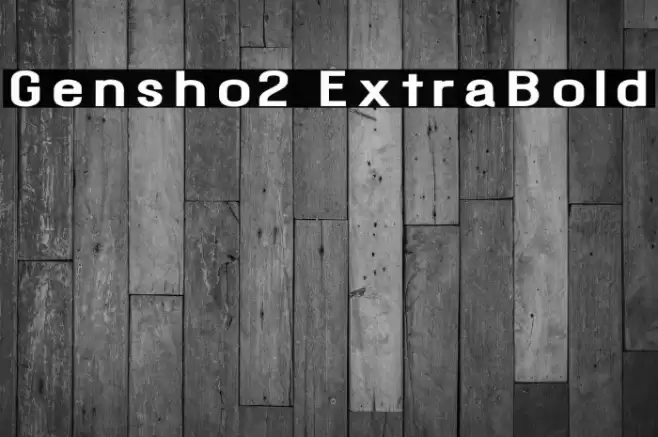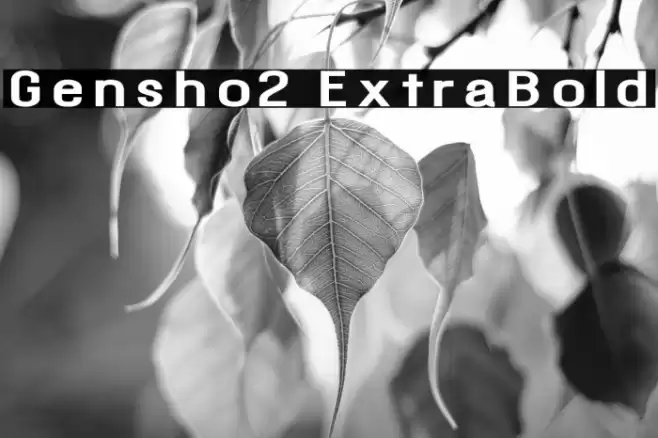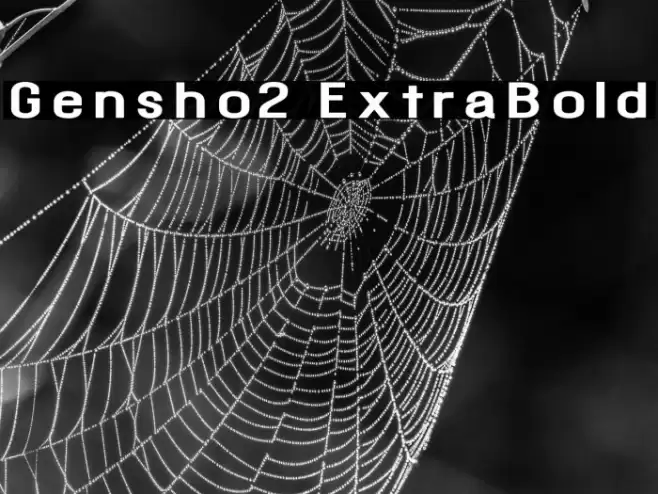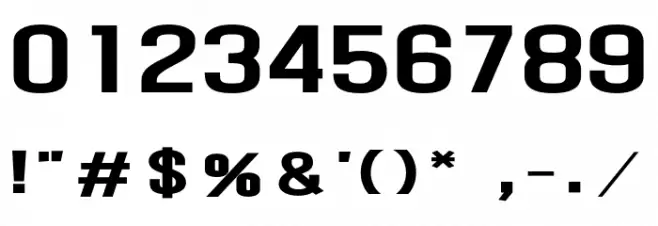
Gensho2 ExtraBold Font
Gensho2 ExtraBold Description
This font features a bold and modern design with clean lines and a strong presence. The characters are uniformly wide, giving it a balanced and structured appearance. The uppercase letters are slightly taller than the lowercase, maintaining a consistent width throughout. The numerals are clear and easily distinguishable, while the special characters are well-integrated into the overall style. The font's geometric shapes and even stroke widths contribute to its contemporary and professional look.
A bold, modern font with clean lines and a structured appearance from Uncategorized fonts.
- Proposed Projects: Ideal for branding, headlines, posters, and digital media where a strong, modern presence is required.
- Use Case: Headlines, Logos, Branding